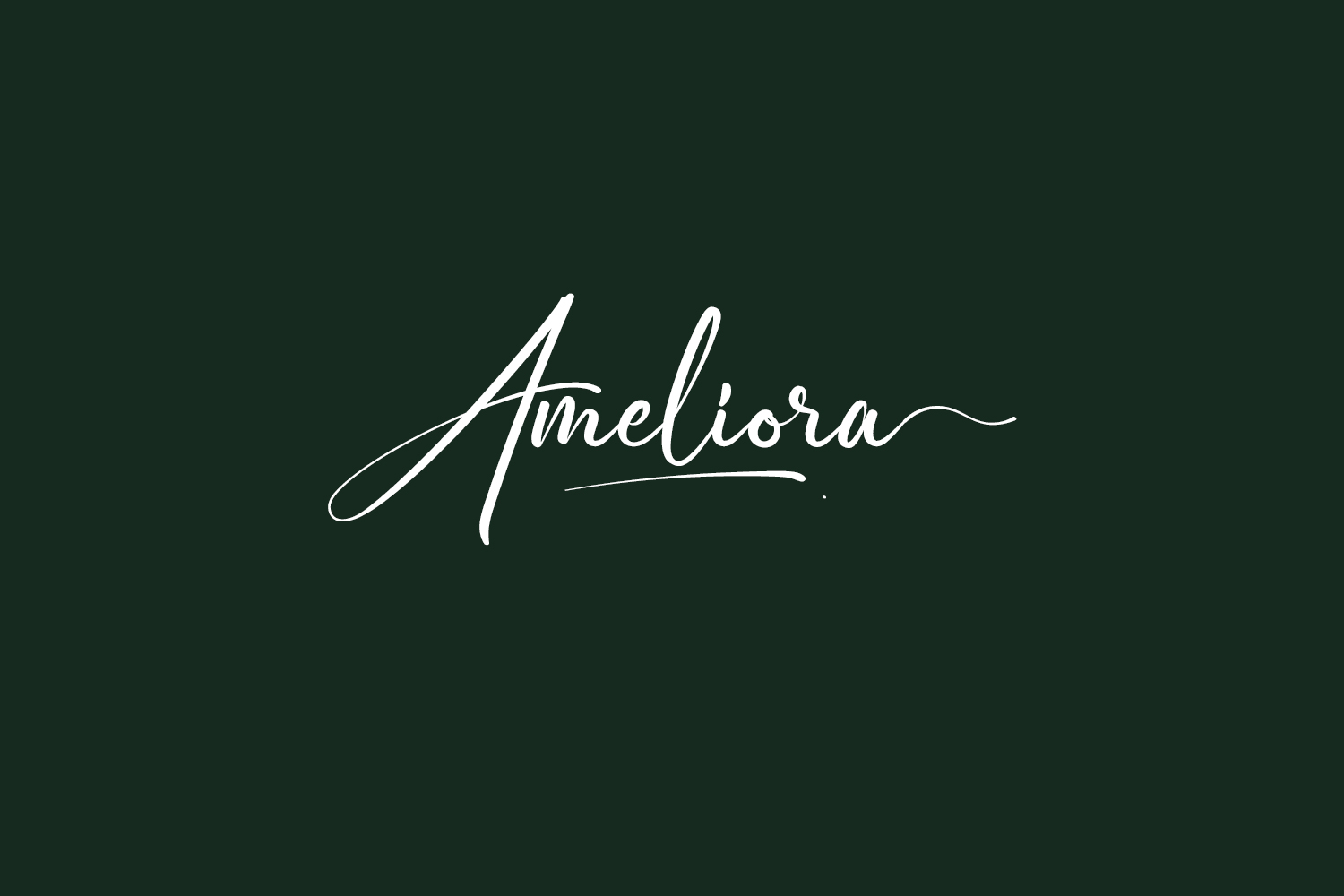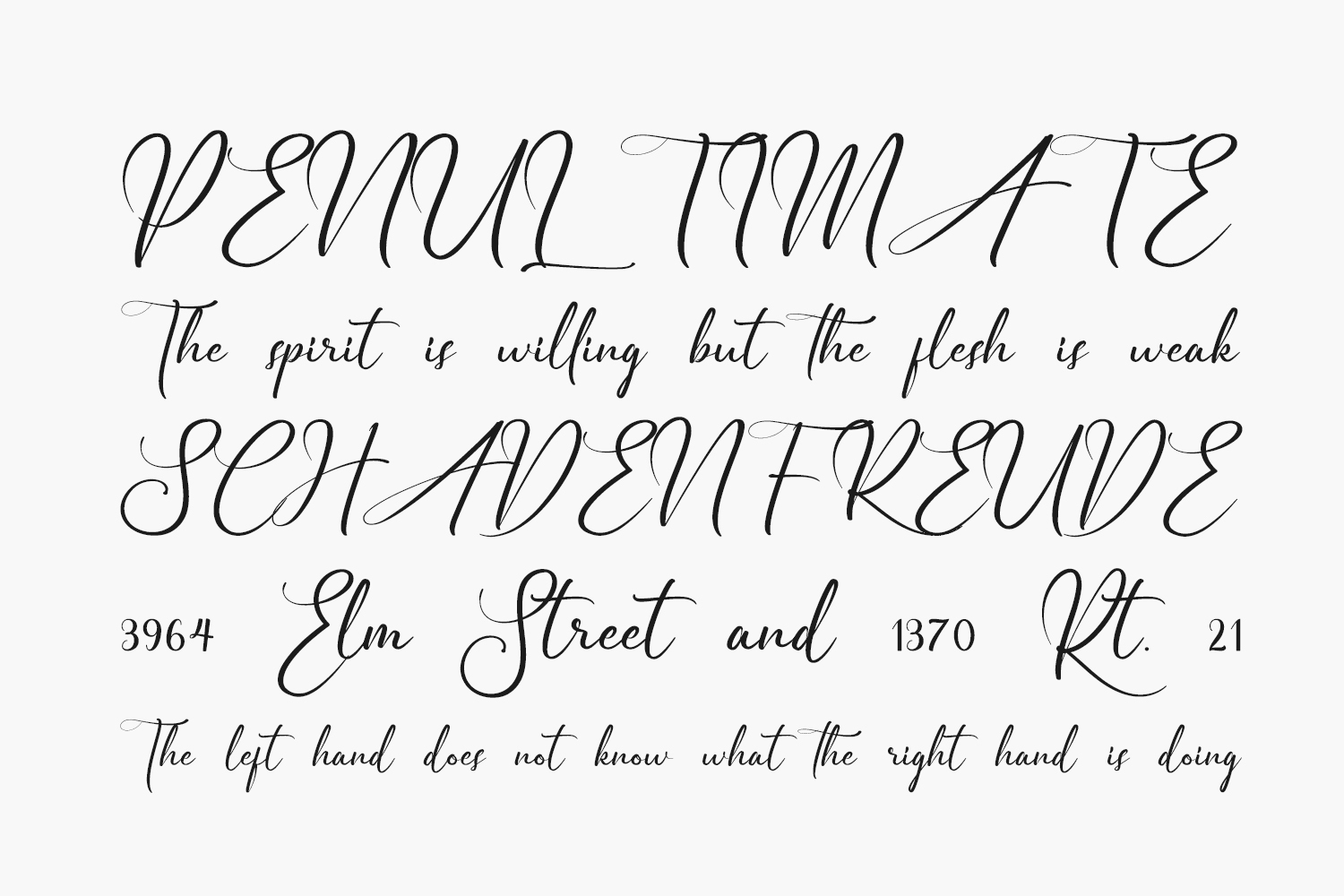
Ameliora Free Font is a sweet and subtle handwritten font that is crafted with great care for maximum results. It will add elegance and class to any of your design projects. Ameliora Free Font was designed by VinType and is free for personal use only. Please purchase the full version for commercial use.